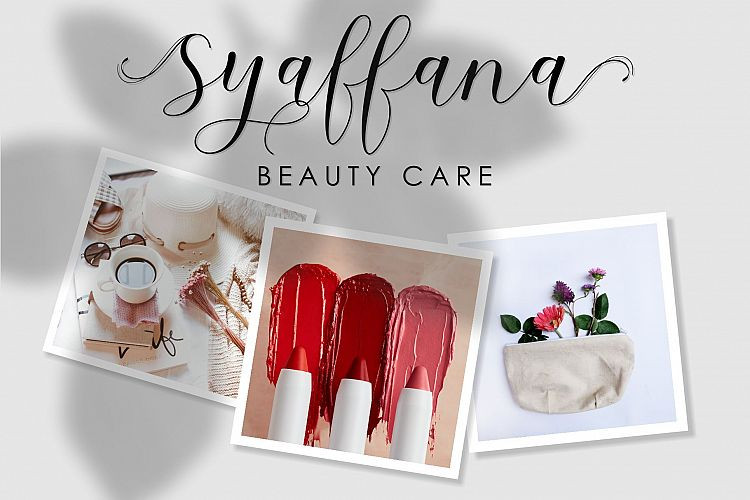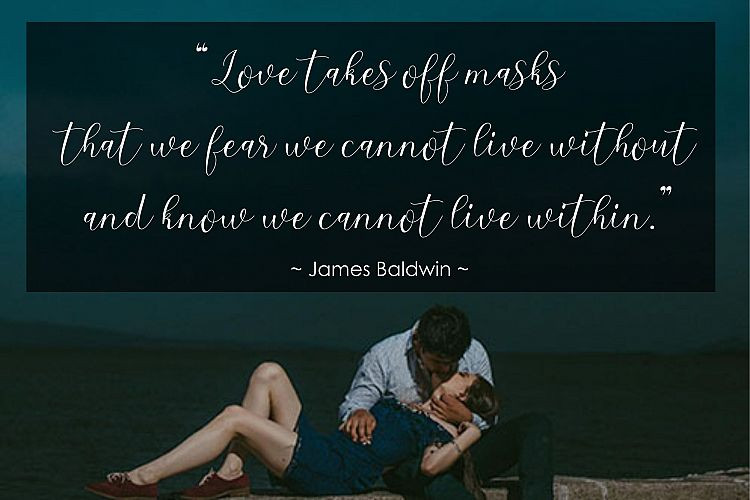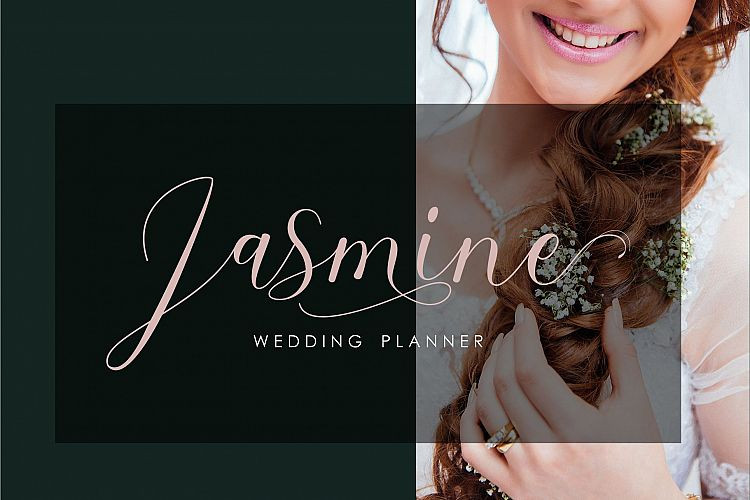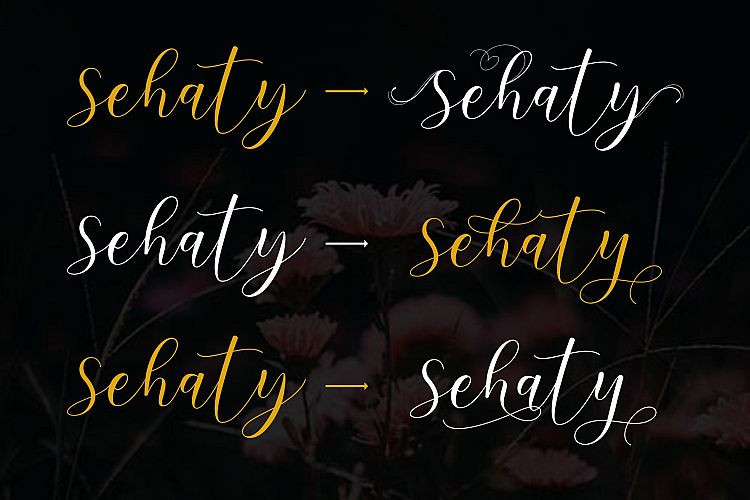
Sehaty Script Font
Sehaty Script – Demo Font
This is a new lovely calligraphy font, this font is made especially for those of you who need a touch of elegance to design your next project with perfect and amazing results. Introducing Sehaty Font. It’s designed and shared by MJB Letters. It’s equipped with lines that are perfect for use for various purposes. Such as titles, signatures, logos, correspondence, wedding invitations, letterhead, sign boards, labels, bulletins, posters, badges, Branding, Greeting Cards, etc. So beautiful on invitations like greeting cards, and more !!!